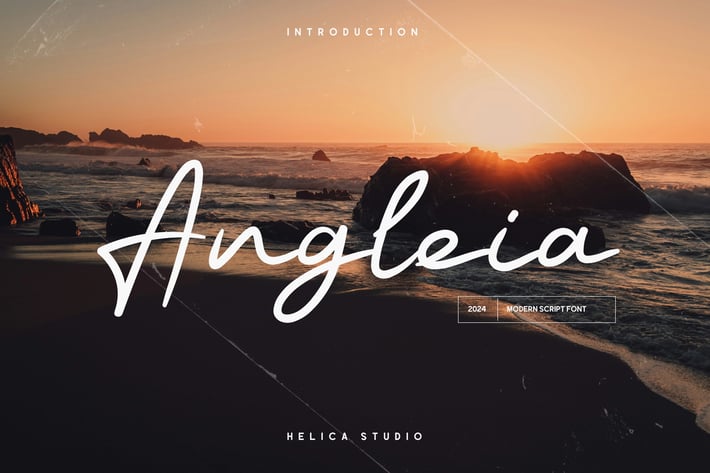
Angleia Script Font
Angleia Script Font typeface is perfect for crafting elegant quotes, stunning logos, captivating magazine headers, and so much more.
Main Features
Ligatures
Numeral & Punctuations